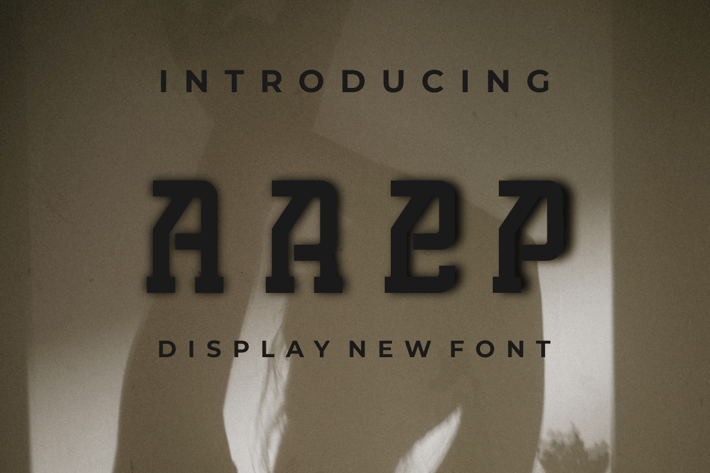
AREP FONT
Introducing our new product AREP FONT - Modern Font
AREP FONT - Modern Font is a bold and authentic display font. The font is suitable for any branding project like logo, t-shirt printing, esport, and many more. outstanding in a wide range of contexts.